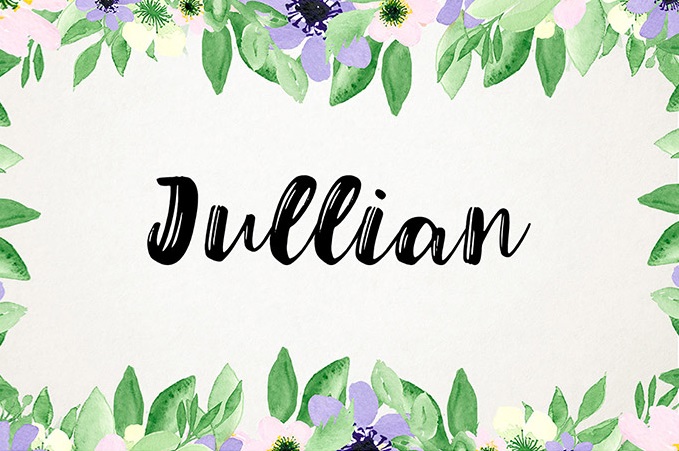
Jullian is a modern handwritten typeface by Daria Bilberry. Perfect for your next design project like greeting cards, branding materials, business cards, quotes, posters, and more!
Also contains everything you may need for that: lowercase and uppercase letters, punctuation, and numerals. Enjoy!